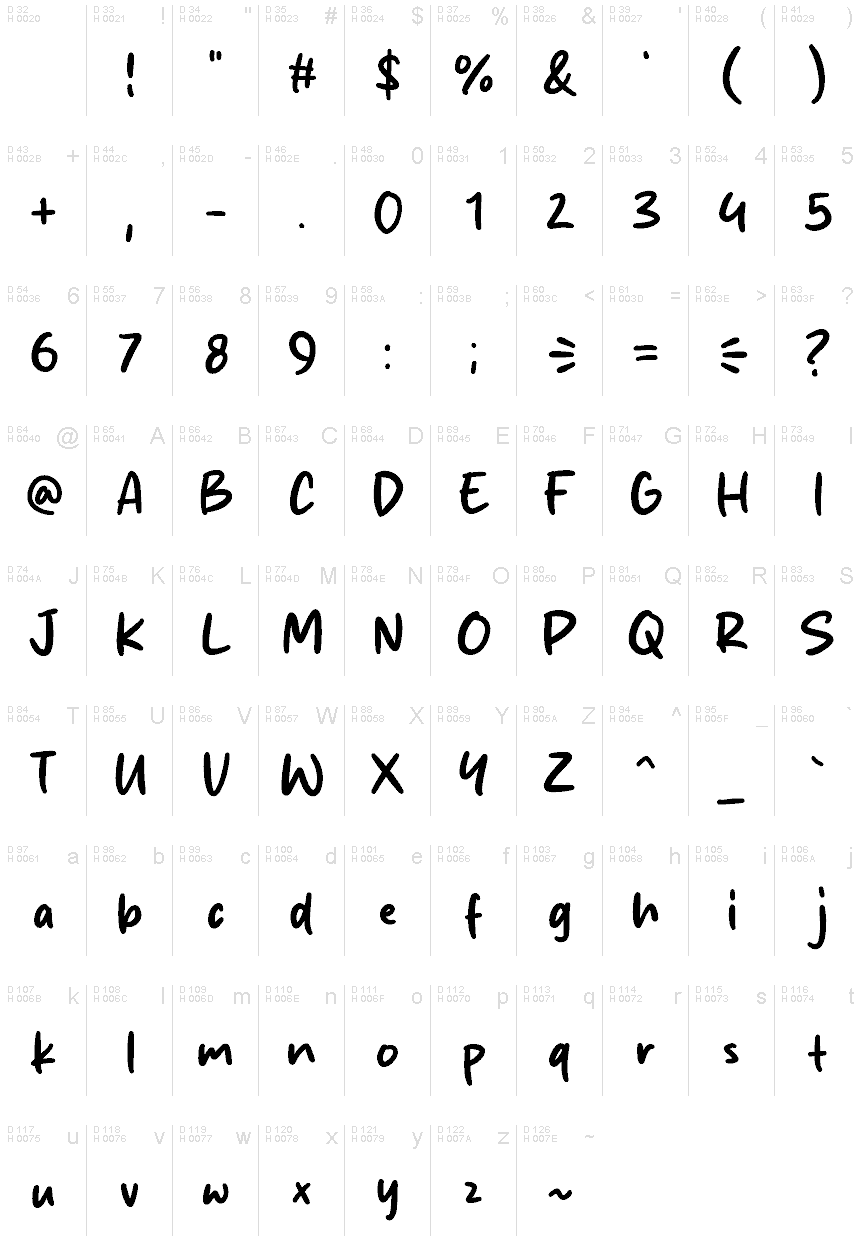
Fried Nuget
Fried Nuget font by MJType is a charming handwritten font filled with expressive and approachable character. Its casual style offers a modern aesthetic that feels both personal and inviting, making it perfect for contemporary design applications. With its warm and friendly look, this free handwritten font easily communicates the emotional depth of its message.
Fried Nuget will make logos have an amicable feel to them while adding value to clothes labels. It can be used on greeting or wedding cards as well as other invitations or special messages that ask for customized typography. Posters, product packaging projects, covers, artwork titles, menus or restaurant letterheads all can benefit from the lovely script letters of this typeface.